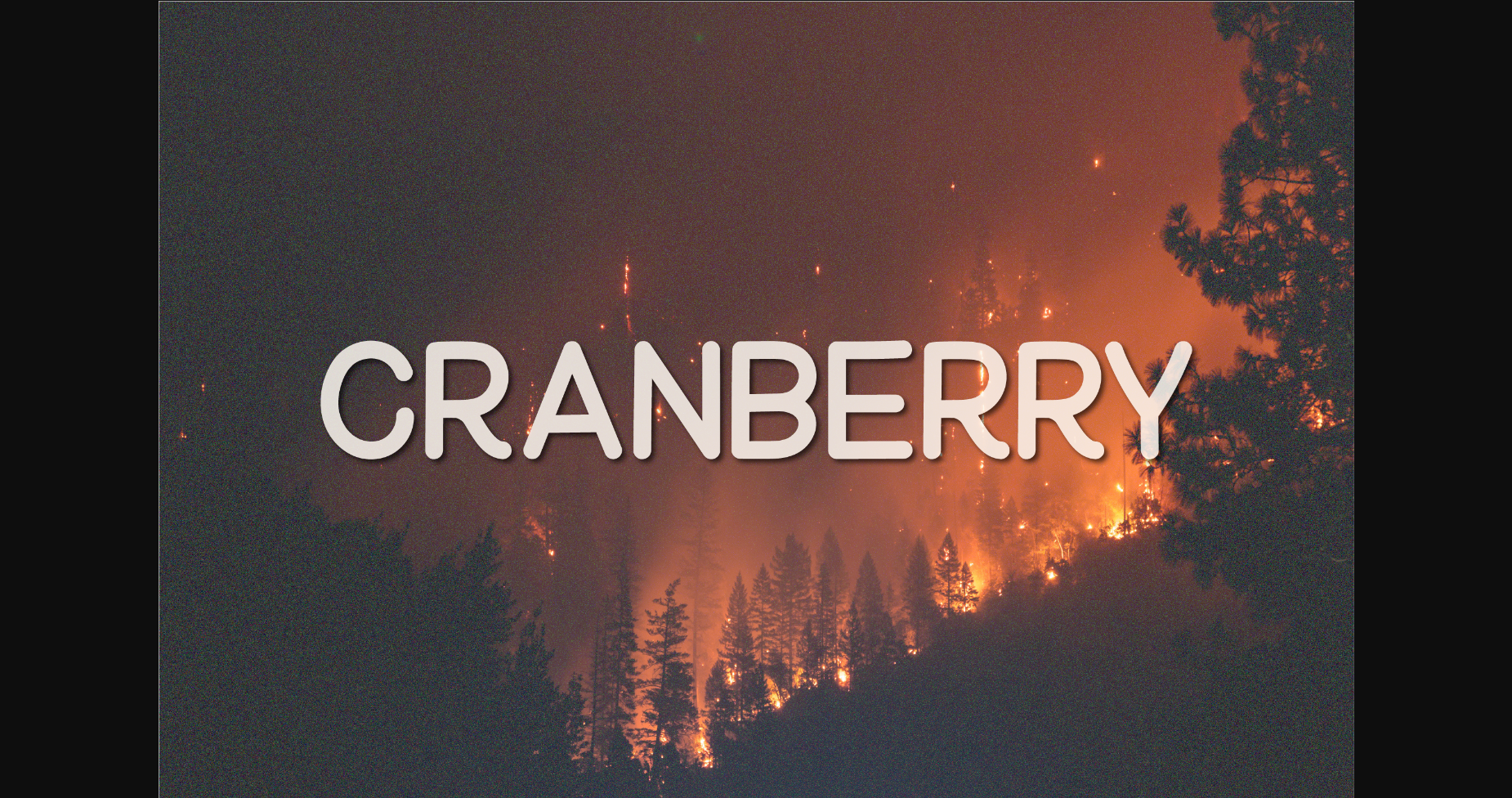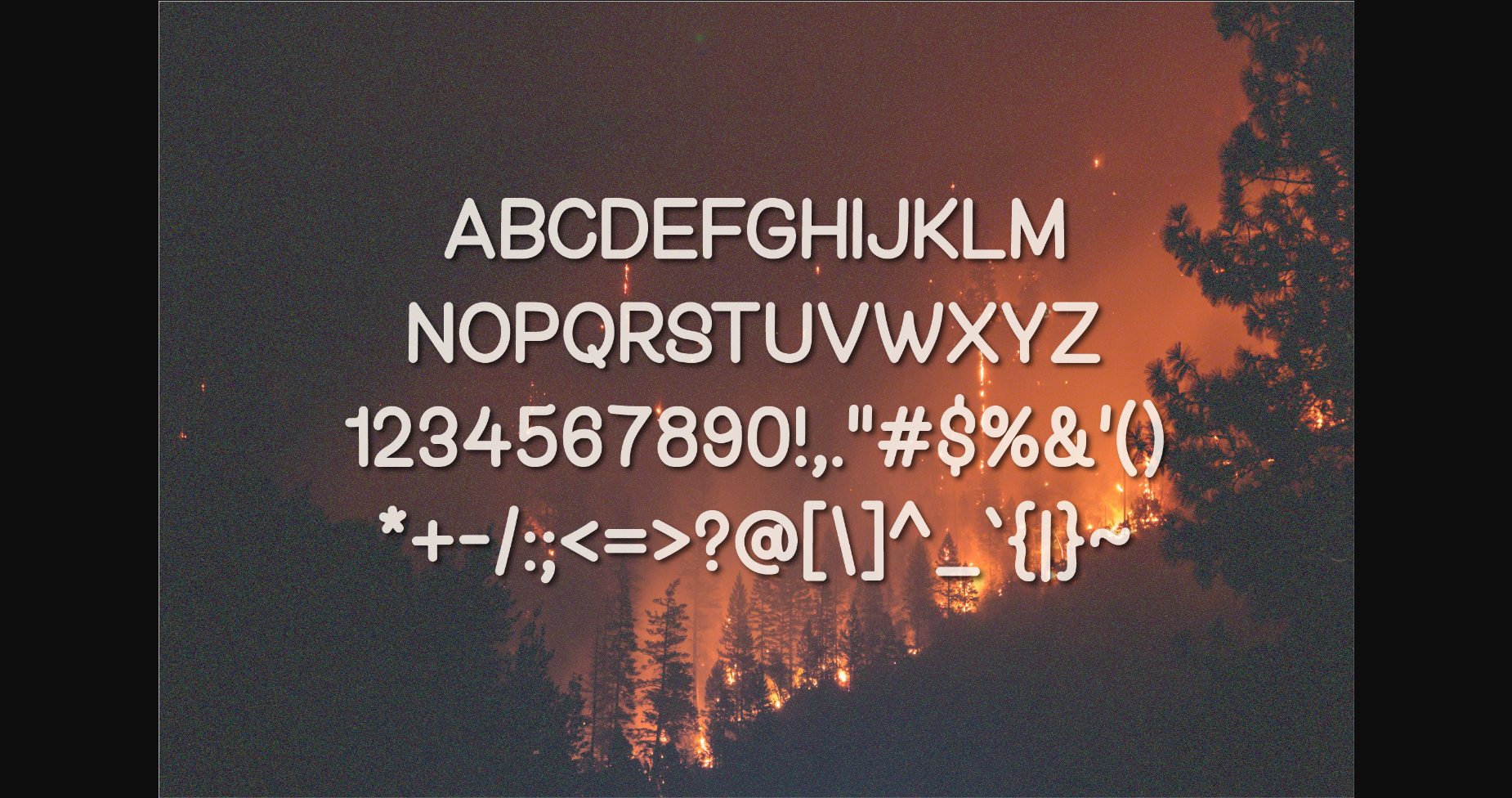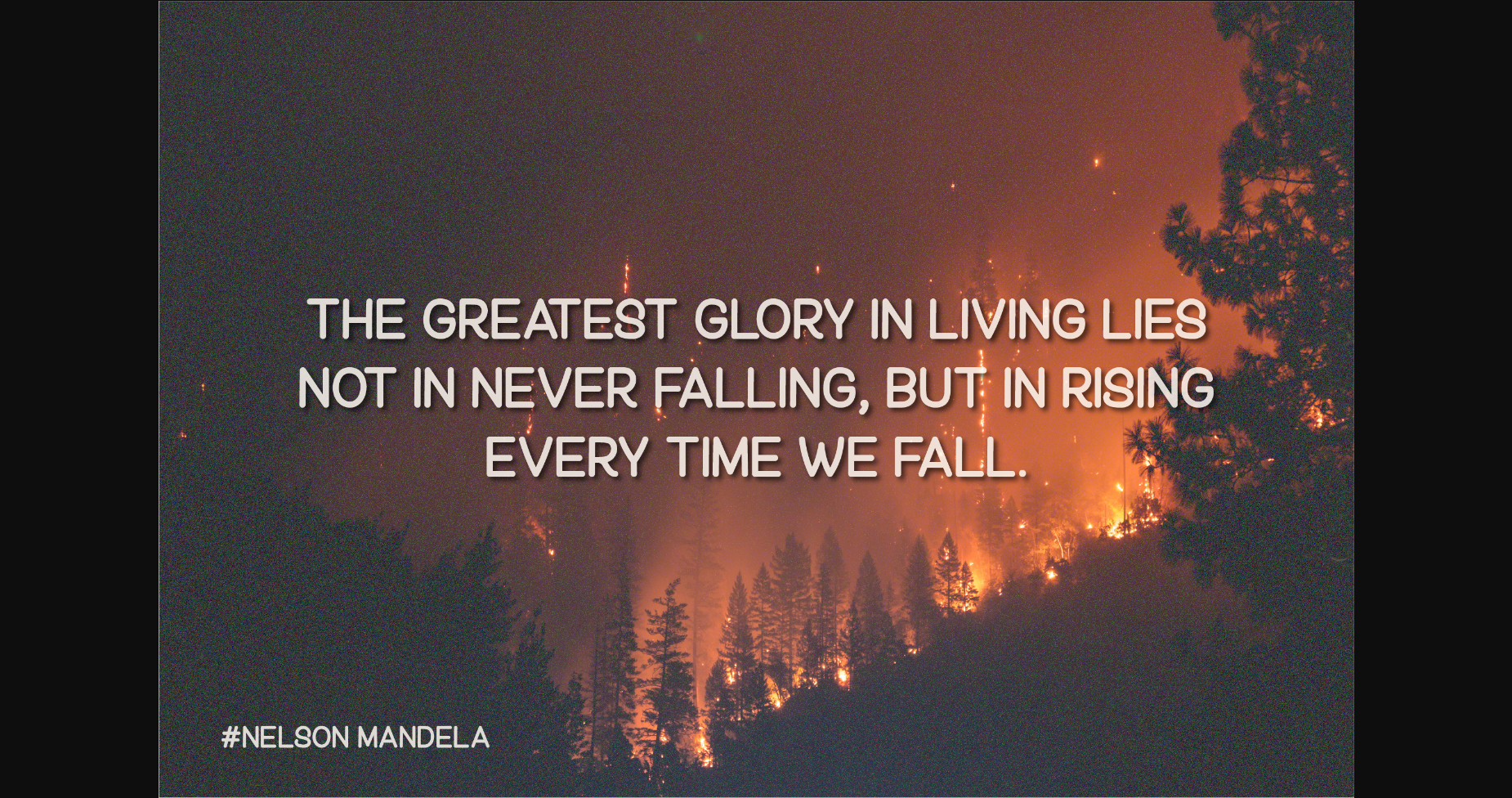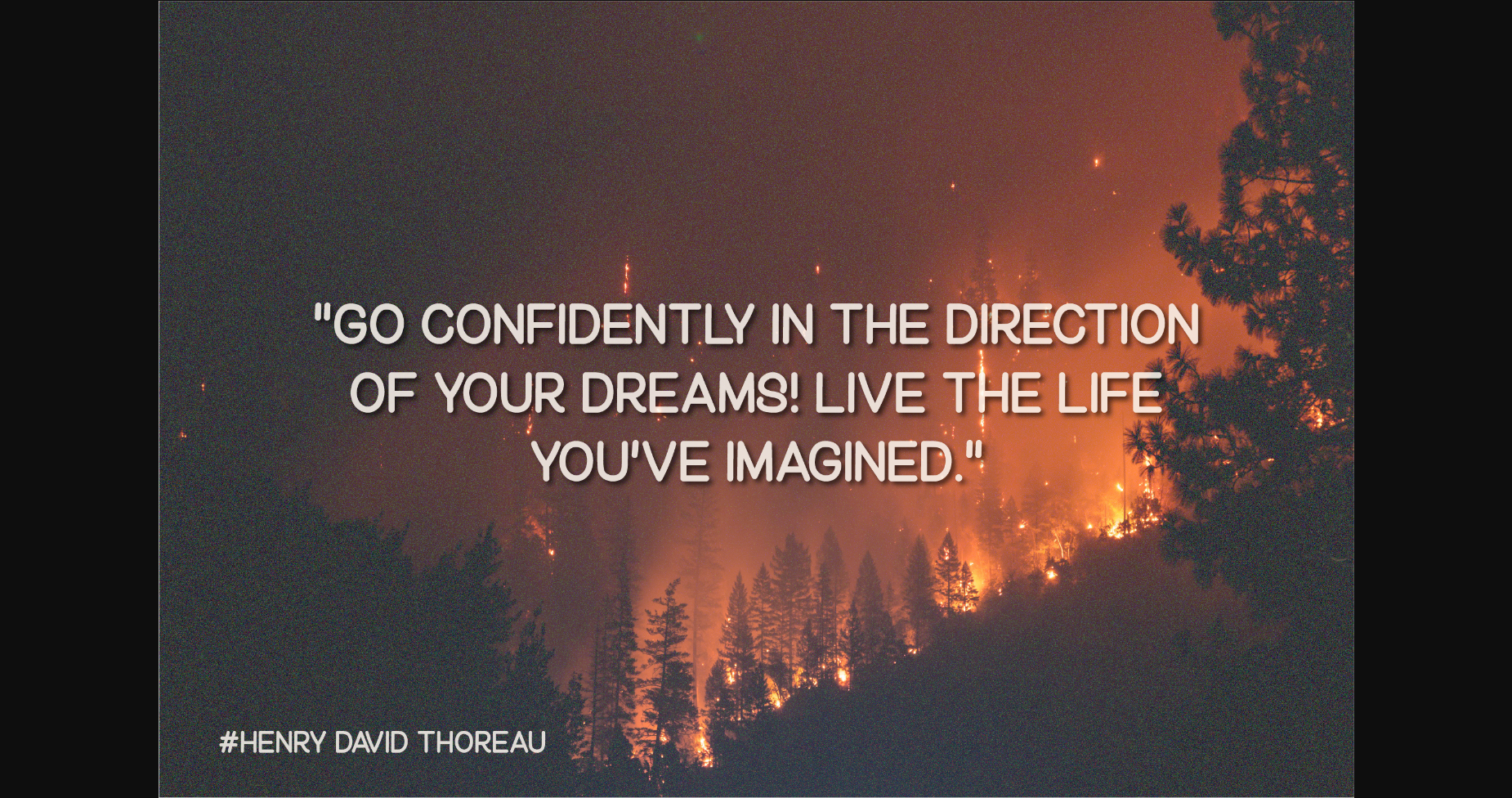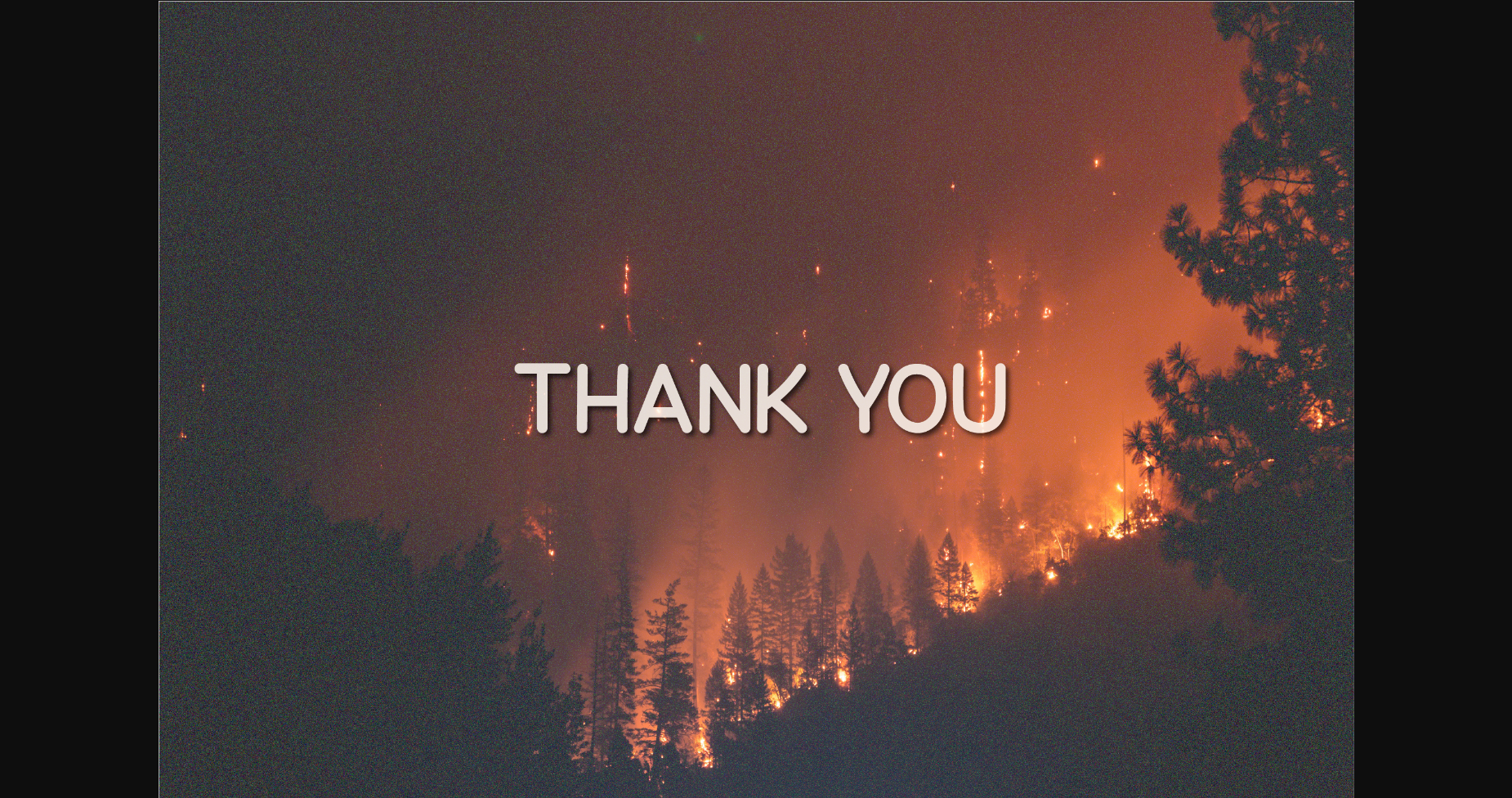
HomeSans Serif FontsCranberry Font Sans Serif Fonts Cranberry Font FacebookXPinterestWhatsApp 1 of 7 ... Cranberry Font Poster 2... Cranberry Font Poster 3... Cranberry Font Poster 4... Cranberry Font Poster 5... Cranberry Font Poster 6... Cranberry Font Poster 7... About Cranberry Font Cranberry is a quirky all-caps font made up of capital letters. This font is perfect for social media or crafty projects. Simple and smooth perfect for crafting, t-shirts, decals, cards, invitations and so much more. DOWNLOAD NOW People also explored Morpheus Font Blind Love Font Bossthy Font Panoptic Pastel Font Happy Asitha Script Uniform Font Hope Staylig Font Doggy Font Simple October Font 368 0 TagsCranberry Font Previous articleProsterg FontNext articleCaramelized Font LEAVE A REPLY Cancel reply Comment: Please enter your comment! Name:* Please enter your name here Email:* You have entered an incorrect email address! Please enter your email address here Website: Save my name, email, and website in this browser for the next time I comment. Personal Use Free Nottingsam Personal Use Free Read more about this font Happy Garden Personal Use Free Read more about this font Hanifah Personal Use Free Read more about this font Welliana Personal Use Free Read more about this font BLOG How to Install and Use Fonts on Windows, macOS, and Web Projects How to Install and Use Fonts on Windows, macOS, and Web Projects Fonts are a crucial part of design and branding. Whether you’re designing a... Free vs Paid Fonts: Why Investing in Premium Fonts Is Worth It Using Fonts in Digital Marketing: Tips to Strengthen Your Brand Identity 5 Fonts That Will Dominate Design Trends in 2026